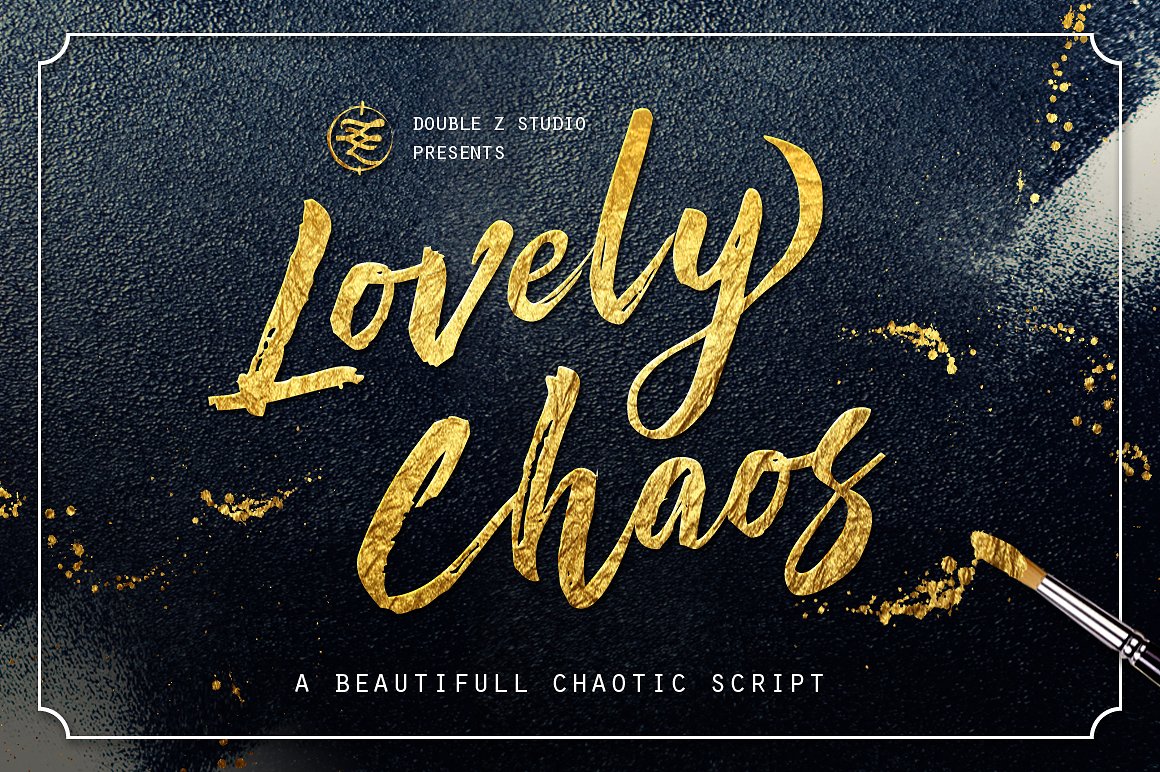
LovelyChaos Script
LovelyChaos Script Font
LovelyChaos is a chaotic beautiful script.Imperfect flow and grunge style combined with script create awesome elegant and grunge feel at the same time. Awesome for designing book covers, film covers, apparel, cards, logos, posters, etc. Opentype features gives you more alternatives in designing.